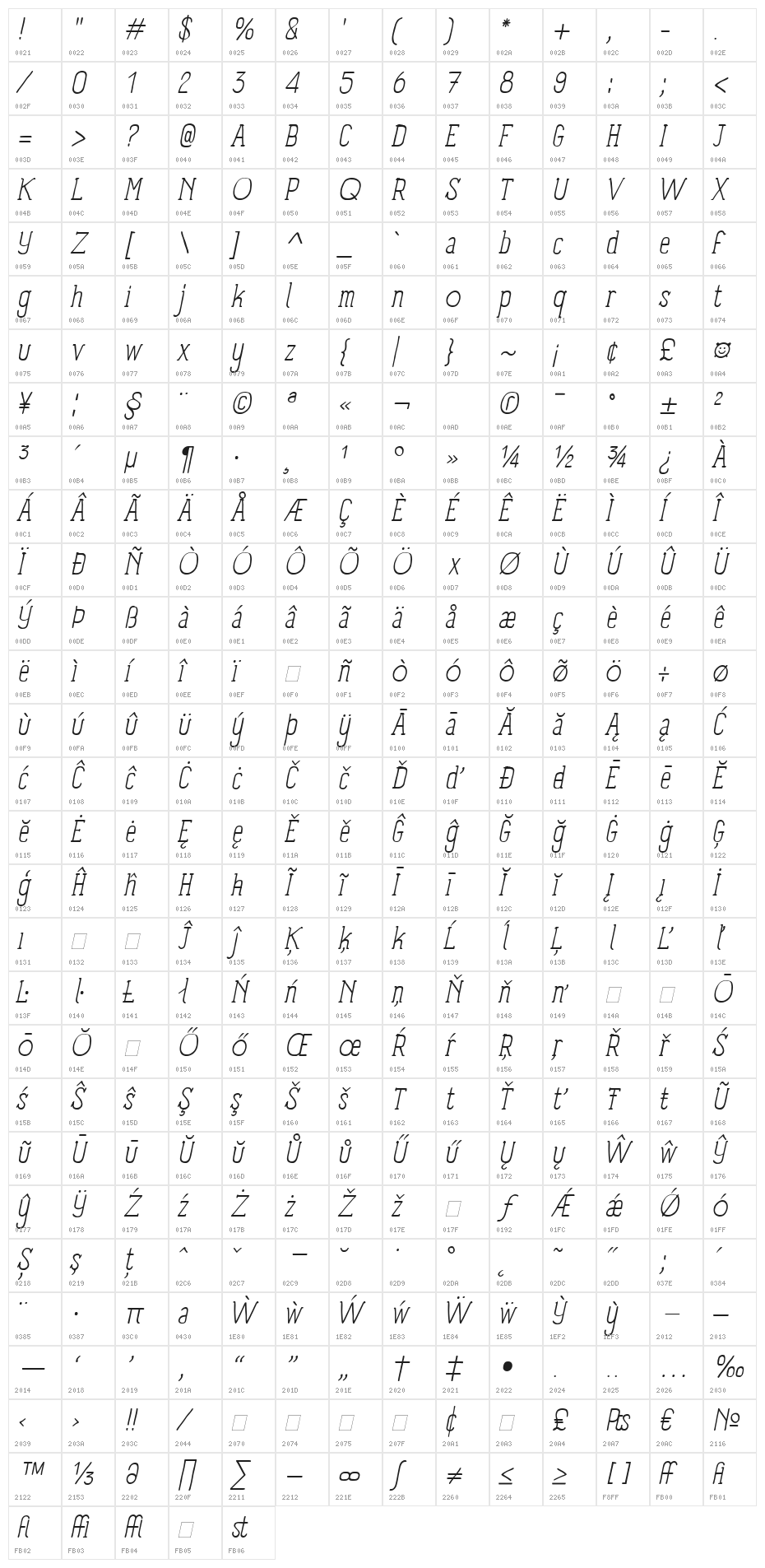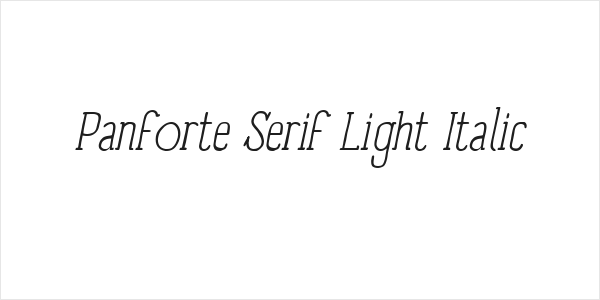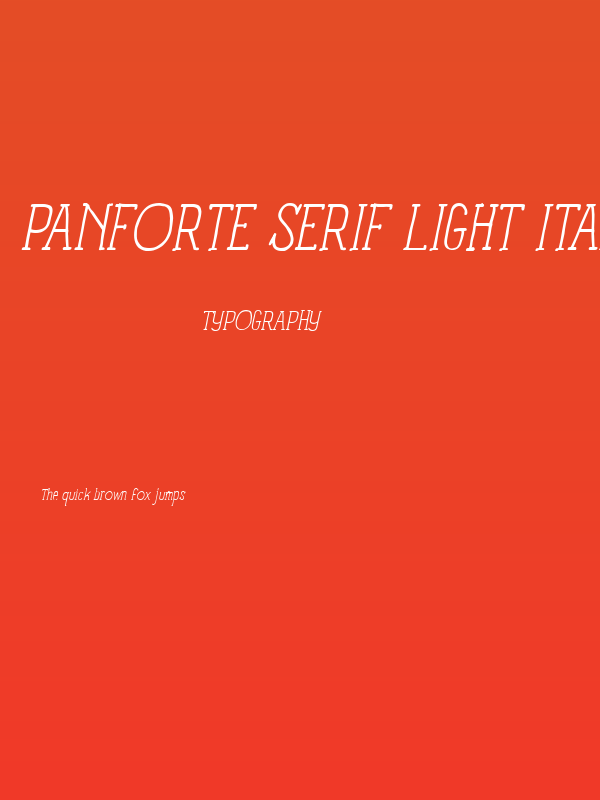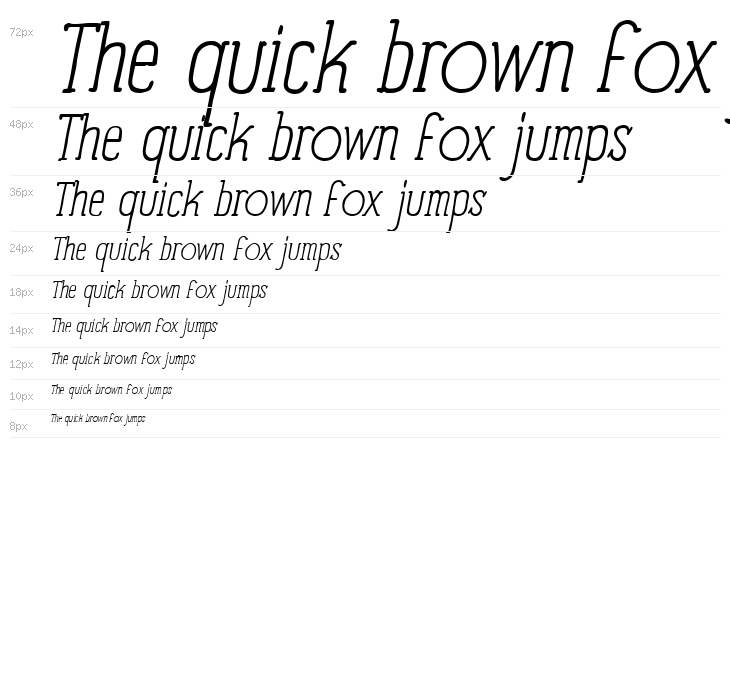
Panforte Serif Light Italic Font
Panforte Serif Light Italic Description
This font features a delicate and elegant serif style with a light weight and italicized form, giving it a sophisticated and refined appearance. The characters are slightly elongated with a gentle slant, enhancing its graceful and fluid look. The serifs are subtle yet distinct, adding a touch of classic charm. The overall design is airy and open, with a moderate contrast in stroke thickness that maintains readability while adding visual interest. This font is well-suited for projects that require a touch of elegance and sophistication.